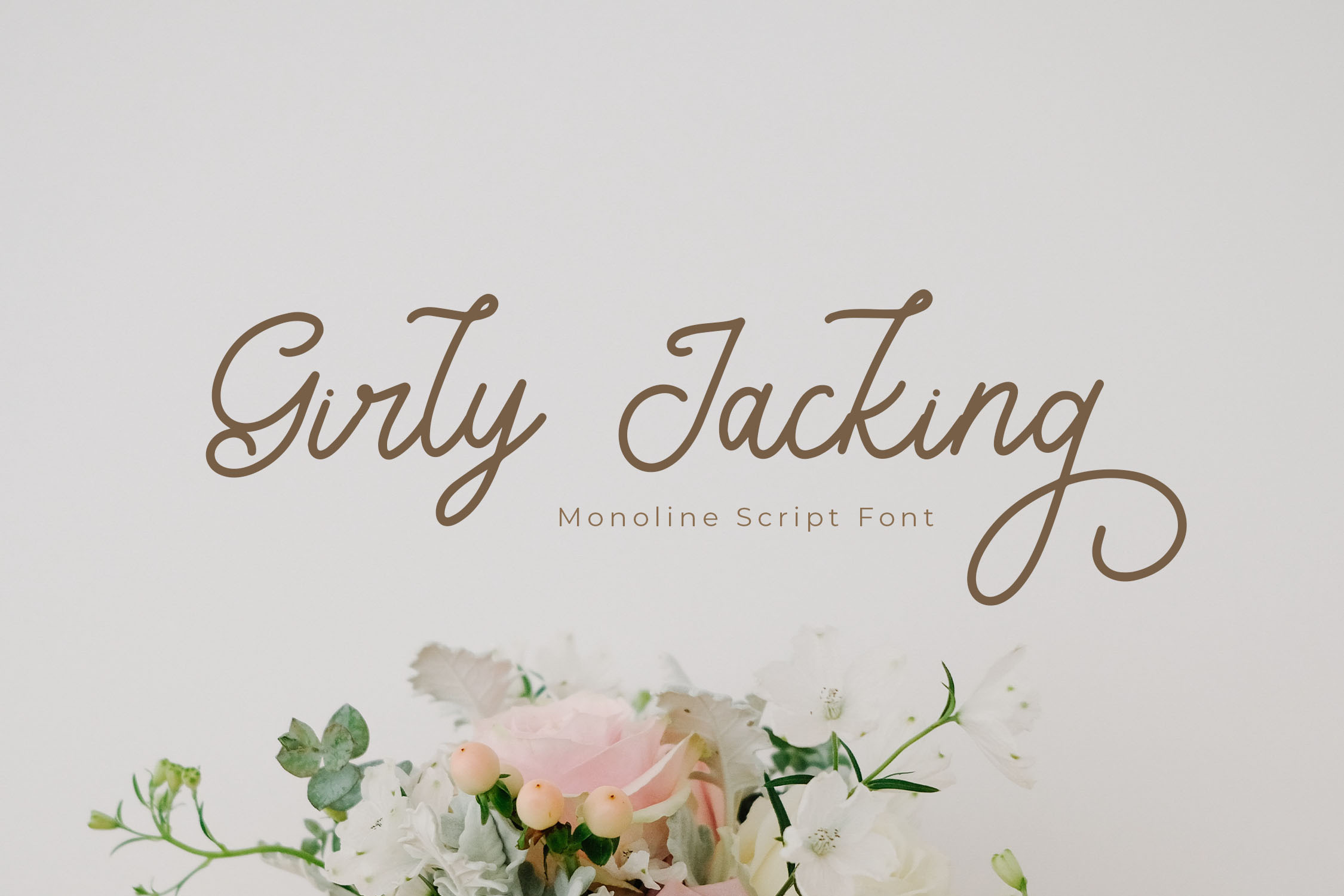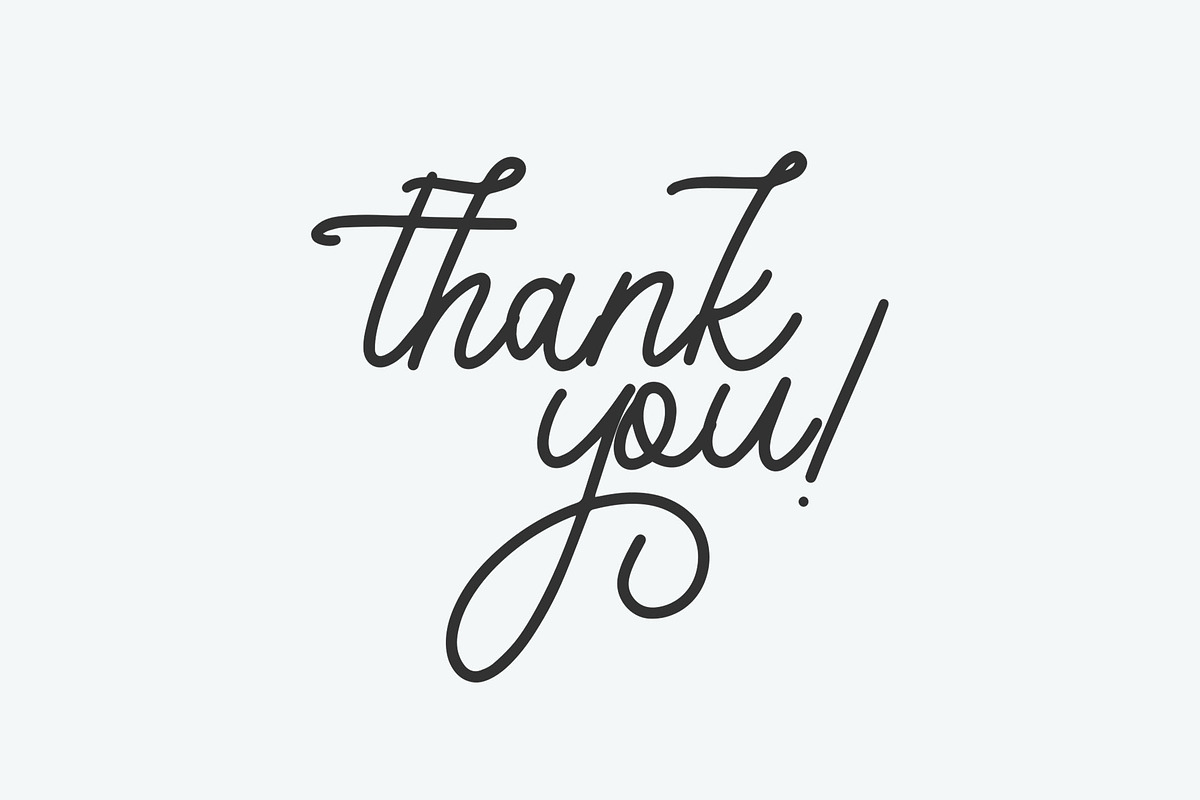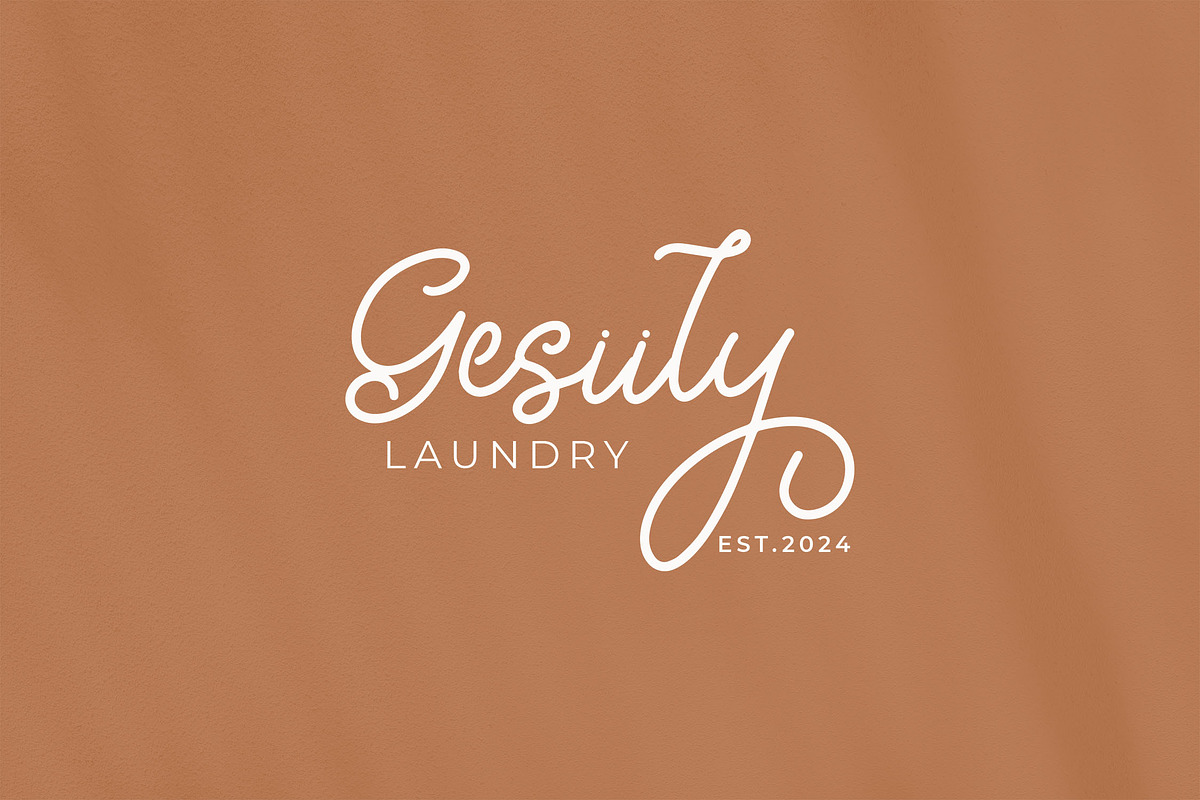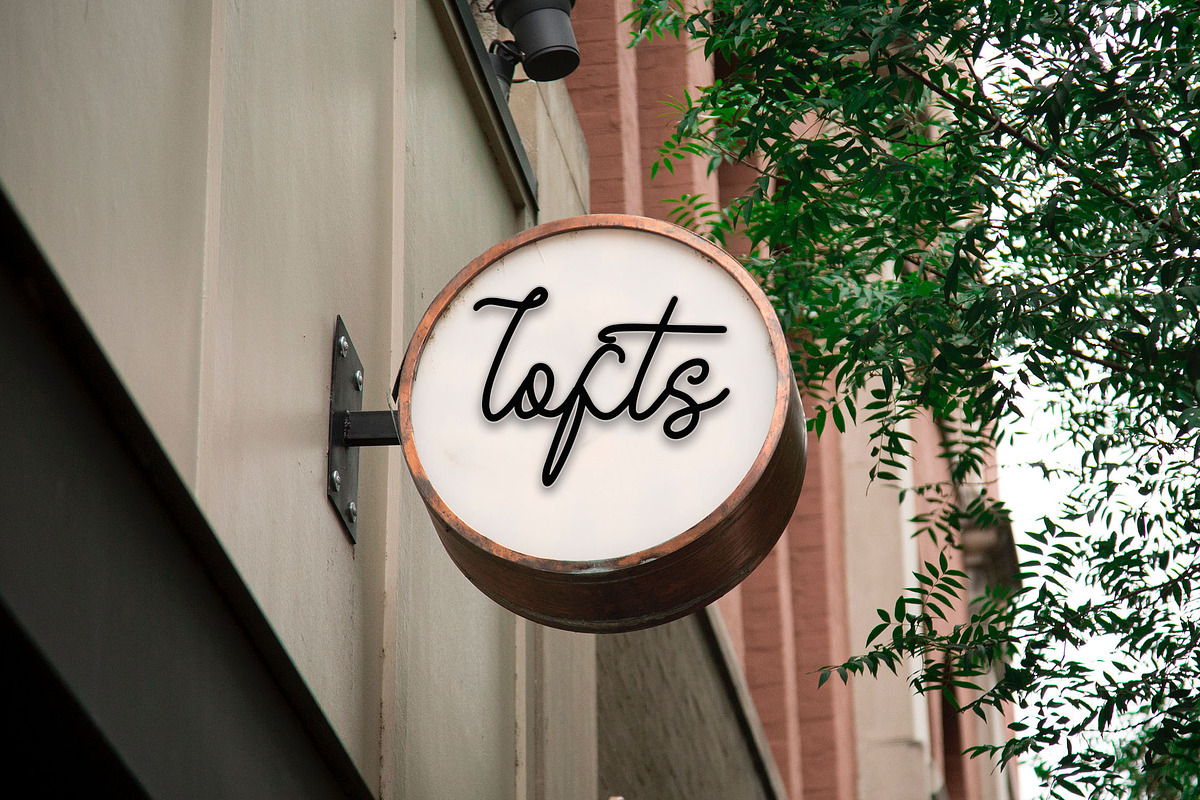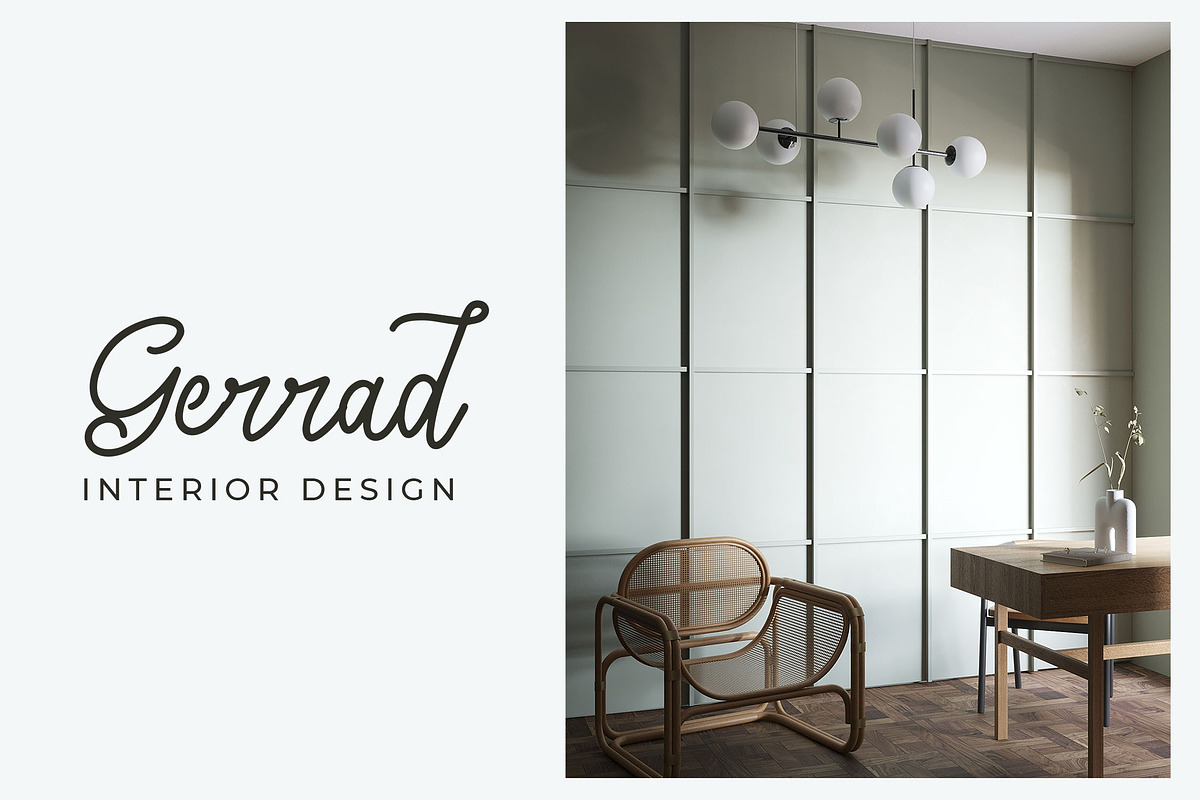
Girly Jacking Monoline Script Font
Girly Jacking - Elegant Monoline Script Font
Introducing Girly Jacking, a stunning script font with a smooth monoline style. This font stands out with its beautifully crafted characters, offering a unique and elegant touch to any design. Perfect for enhancing branding, invitations, logos, and packaging, Girly Jacking brings sophistication and charm to your creative projects.
- Includes ligatures, stylistic alternates, and swashes
- Multilingual support for diverse projects
Add a touch of elegance and fluidity to your designs with Girly Jacking!